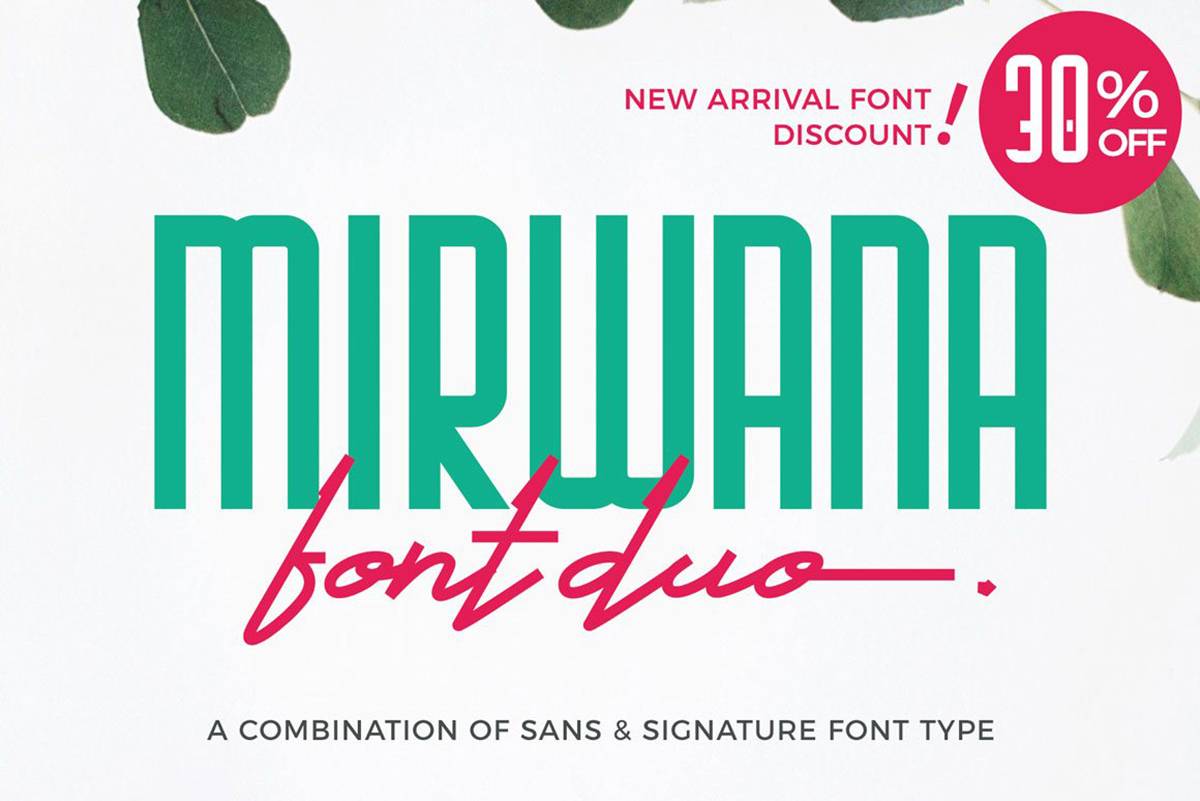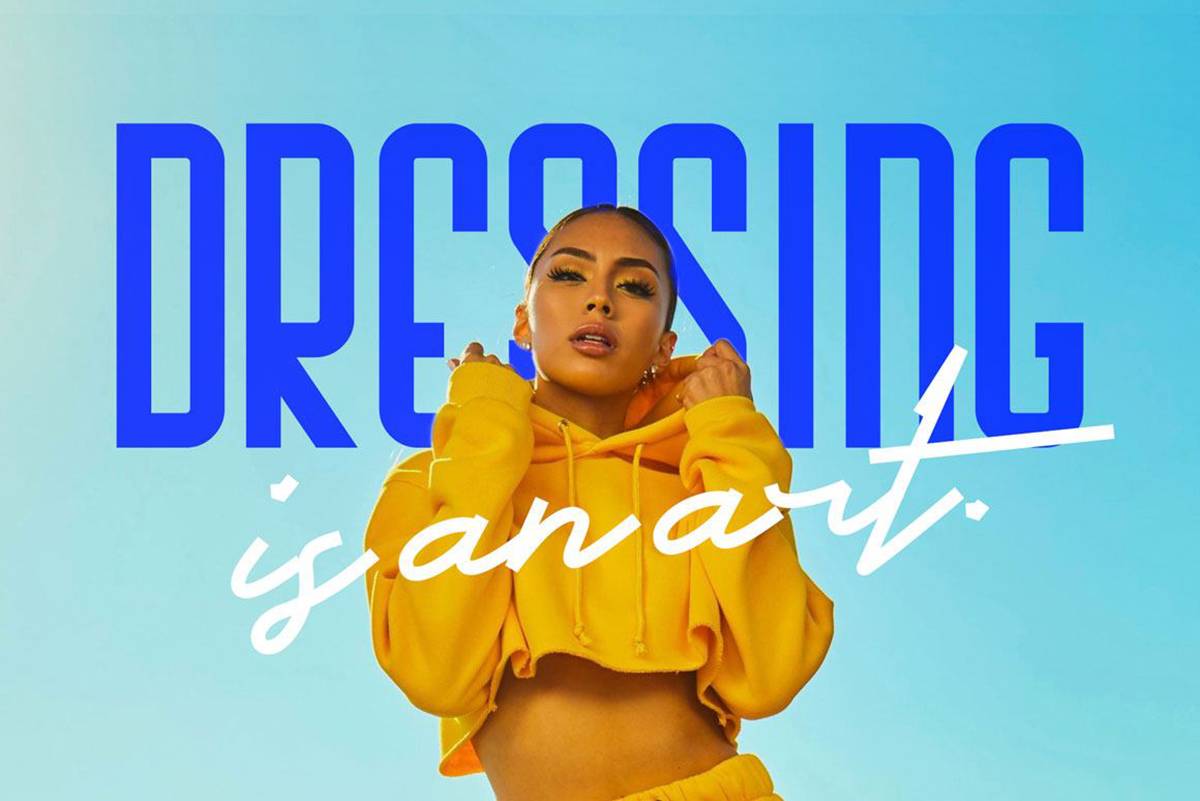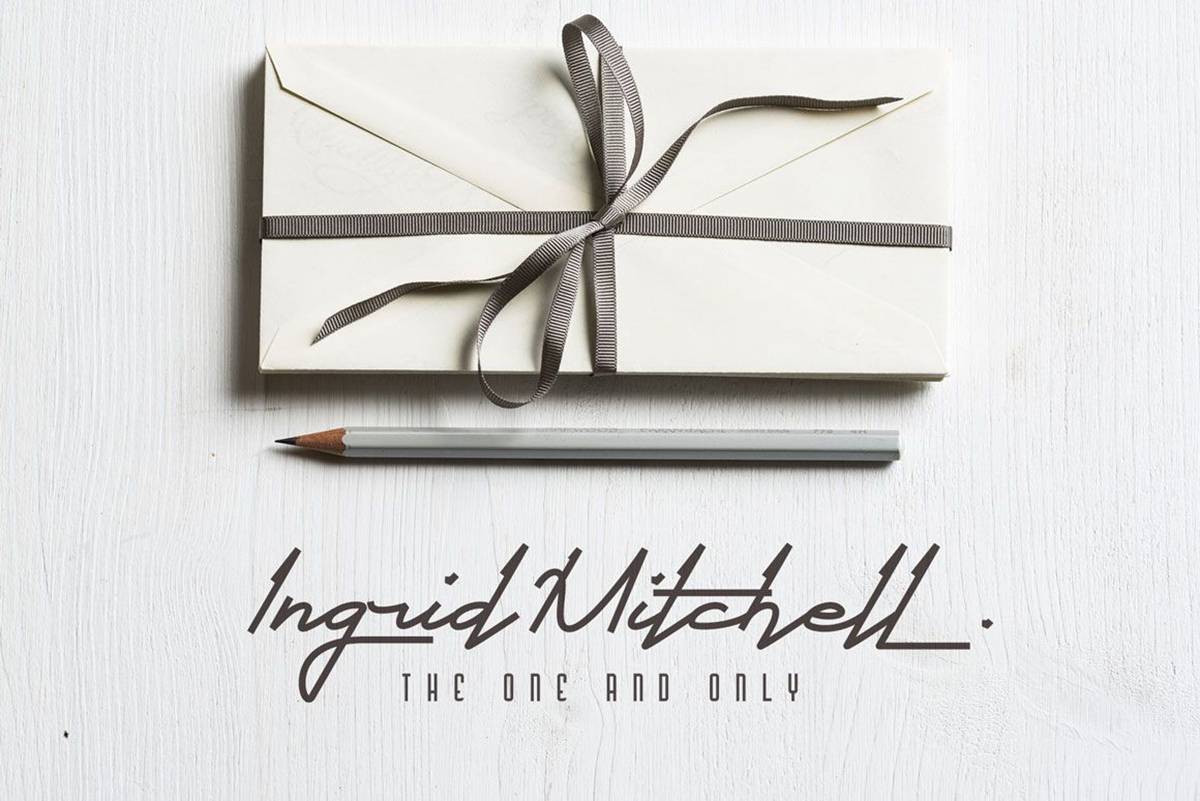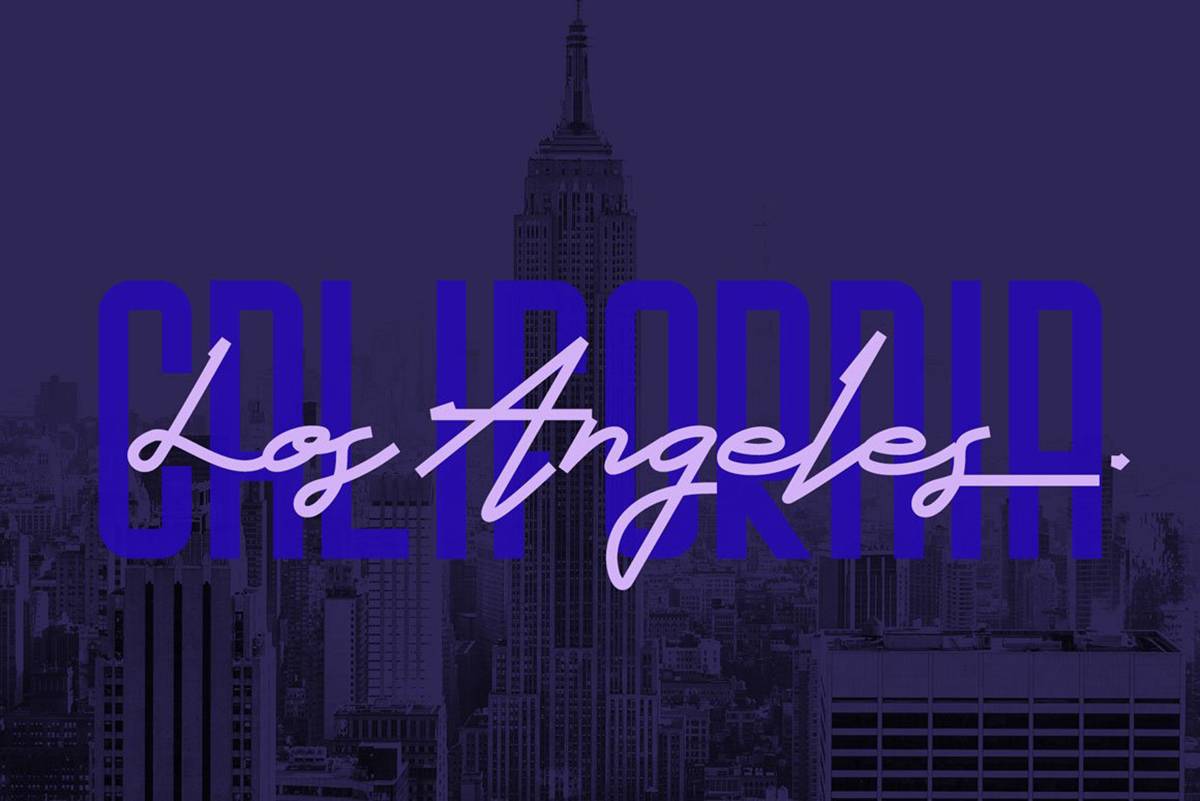
Mirwana is a stylish script font that mimics elegant, flowing handwriting with a light and airy feel. Its delicate, connected strokes and slight slant give it a personal and sophisticated touch, making it perfect for invitations, branding, and designs that seek a graceful, refined appearance. This font works best in creative and personal contexts where a handwritten charm adds warmth and character.
Mirwana Font
About Mirwana Font
| Font family | Mirwana Font |
| Designer | Rio Purba |